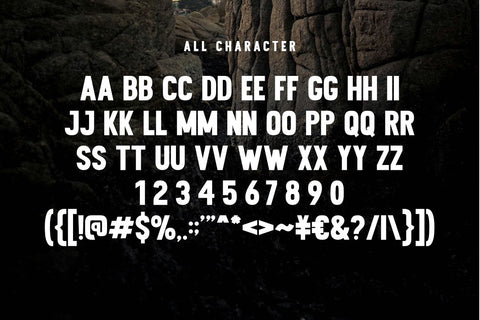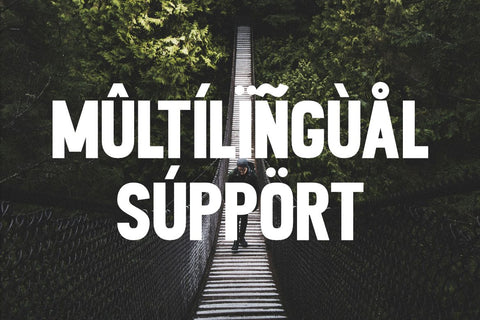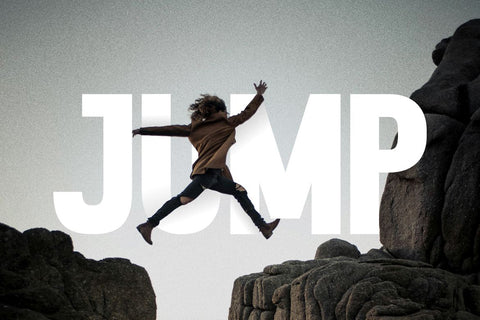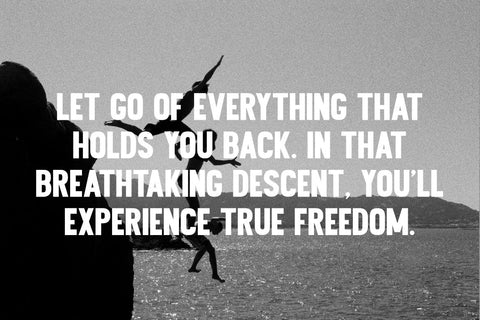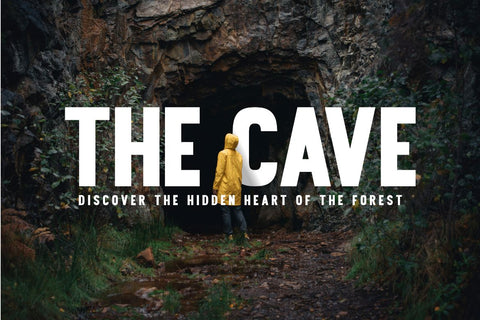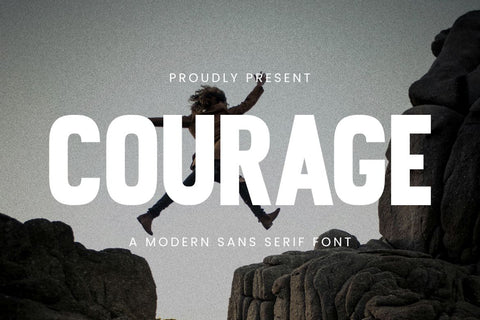
Courage - Modern Sans Serif Font
Courage is a modern sans serif font. This font is perfect for delivering a powerful statement and commanding attention in all your design projects, making it ideal for designs that require strength, impact, and a bold presence. Its robust, unwavering letterforms are designed to convey a sense of dynamism and unwavering stability, perfect for conveying a strong message. Whether you're working on striking logos, impactful event posters, creating dynamic headlines for websites, designing compelling branding for activewear, or crafting powerful social media graphics, Courage is your go-to typeface! It ensures your message is not just seen, but felt with an undeniable force and authority. Embrace its commanding presence to create designs that truly stand out and resonate with unwavering confidence.